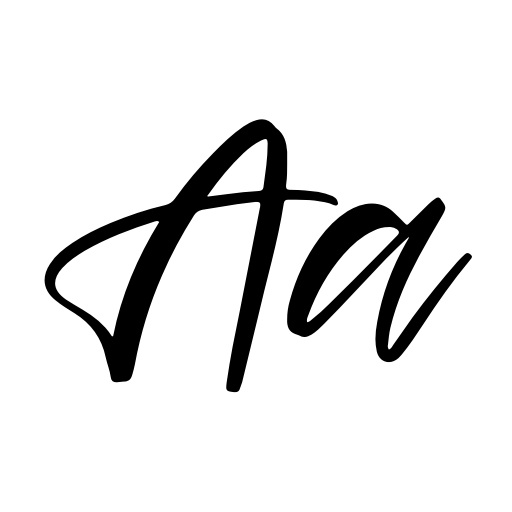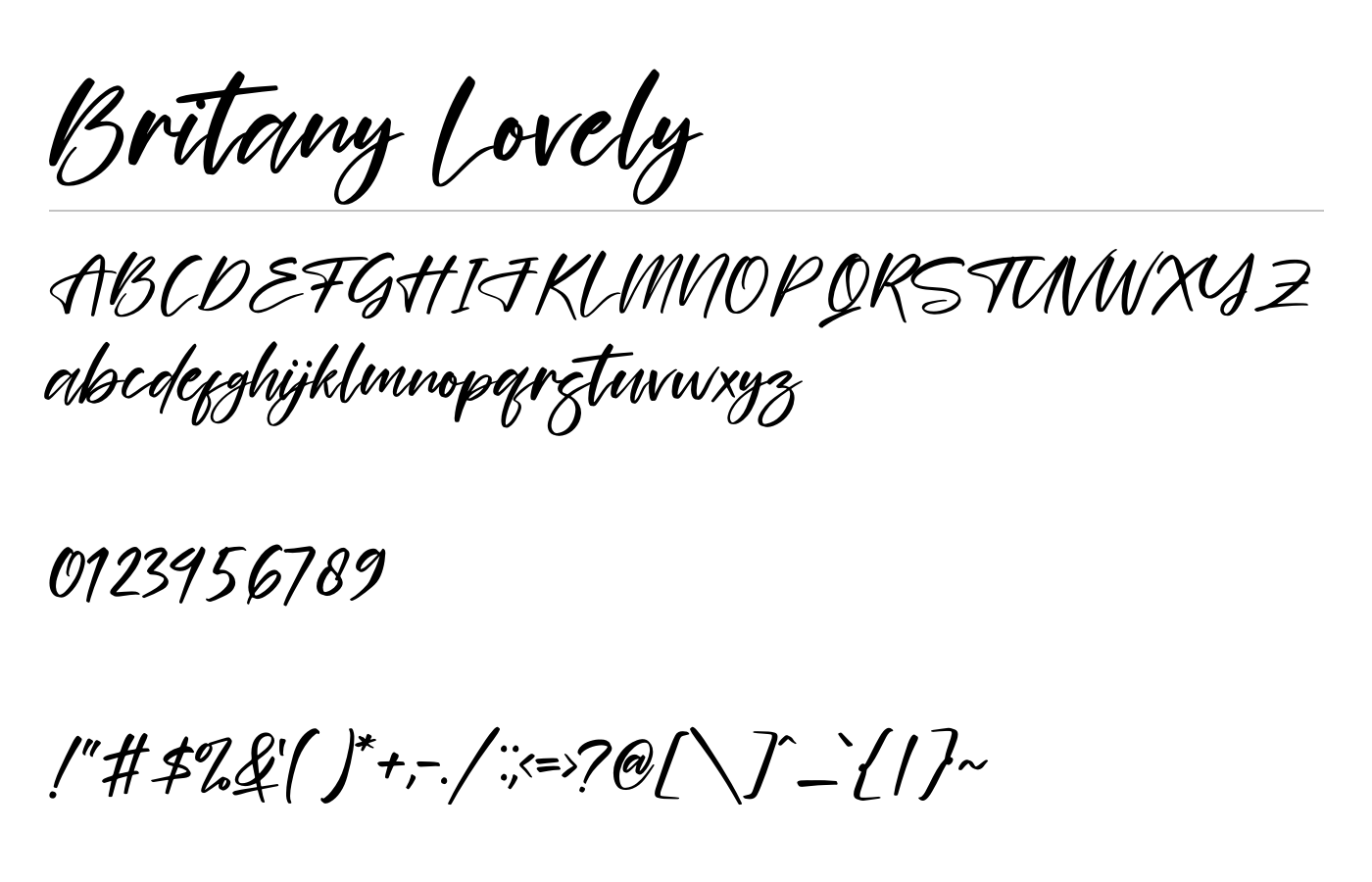
Britany Lovely is a stylish script font with a smooth, flowing design that feels personal and elegant. Its medium weight and natural brush-like strokes give it a fresh, upbeat character, making it perfect for creative projects like branding, invitations, and social media where a friendly yet sophisticated touch is desired. This font works best in headlines or logos, adding a casual yet polished vibe that resonates with modern, trendy audiences.
Britany Lovely Font
About Britany Lovely Font